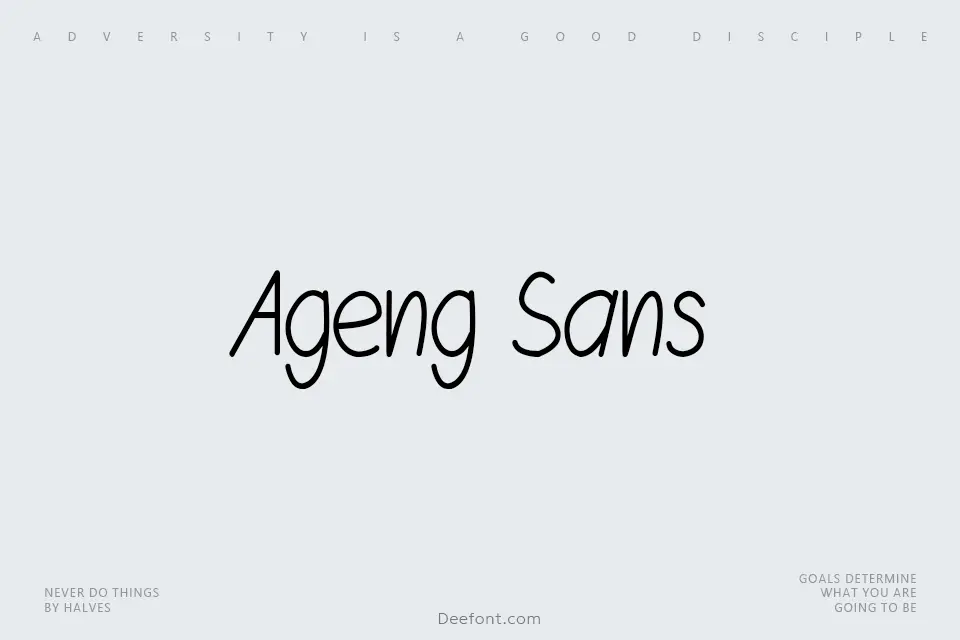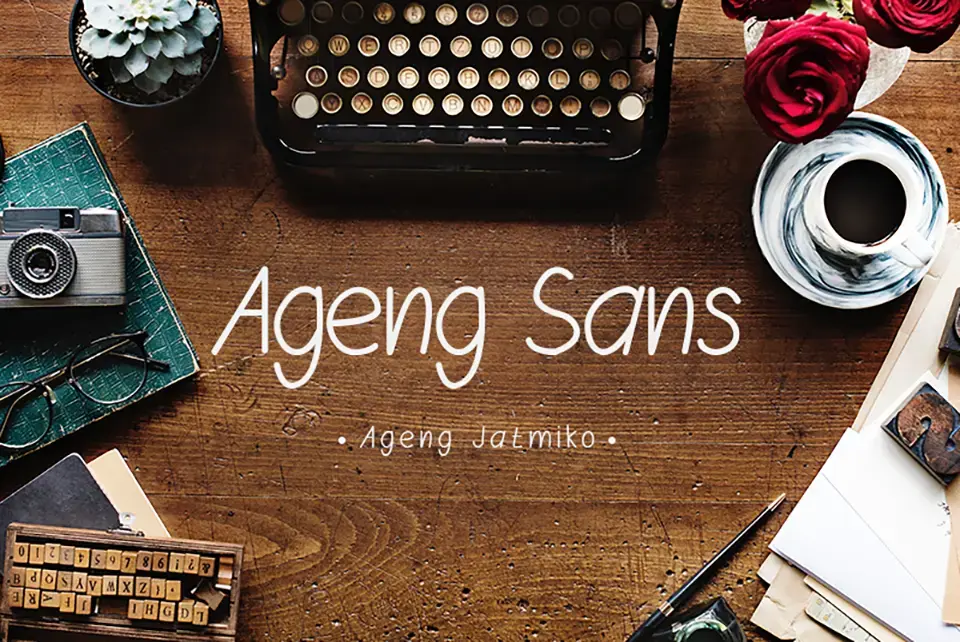
Ageng Sans Font
Ageng Sans is a light, casual handwritten sans font with clean monoline strokes and rounded corners that feel warm and approachable. Its relaxed letterforms and natural spacing make it ideal for logos, posters, packaging, quotes, diaries and social media graphics where a friendly, personal touch is essential.